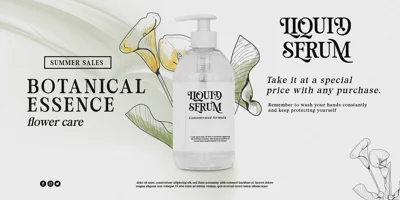
Semutan Font
Semutan Font is ideal for exotic travel branding, Southeast Asian restaurant menus, tropical resort marketing, cultural festival graphics, ethnic food packaging, traditional craft boutiques, heritage tourism materials, spice market signage, authentic cuisine cookbooks, and any vibrant project that celebrates the rich cultural diversity and tropical warmth of Southeast Asian traditions and lifestyle.
What makes Semutan Font exciting is its authentic cultural character that captures the vibrant energy of Southeast Asian heritage and the warm hospitality of tropical communities. This typeface embodies the spirit of cultural richness with letterforms that suggest traditional craftsmanship, spice market bustling, and the colorful tapestry of diverse ethnic traditions. The font's cultural character makes it perfect for brands and projects that want to communicate authenticity, warmth, and the exotic appeal of Southeast Asian culture and tropical lifestyle experiences.
The Semutan Font family includes multiple weights and cultural variations, featuring light, regular, and bold versions along with decorative elements and alternate characters inspired by traditional Southeast Asian calligraphy and artistic motifs. This comprehensive collection allows designers to create culturally authentic typography that maintains the font's signature exotic character while providing flexibility for various cultural and hospitality design applications.
When exploring authentic cultural typography, Semutan Font represents an exceptional opportunity to work with a typeface that genuinely captures the spirit of Southeast Asian culture and tropical lifestyle. This font demonstrates innovative design thinking by incorporating the organic warmth and cultural richness that define both traditional Southeast Asian artistry and the contemporary appeal of exotic travel experiences.
Professional designers appreciate Semutan Font for its ability to instantly evoke feelings of cultural authenticity and tropical warmth across various hospitality and cultural platforms. The font's exotic character makes it particularly effective for travel companies, restaurants, and cultural organizations seeking to establish connections with audiences drawn to authentic cultural experiences and tropical lifestyle adventures.
The contemporary appeal of Semutan Font lies in its perfect representation of cultural heritage and tropical lifestyle that continues to fascinate travelers and food enthusiasts worldwide. This typeface serves as a bridge between traditional Southeast Asian culture and modern global appreciation for authentic ethnic experiences and exotic destinations.
For creative professionals working with cultural and hospitality brands, Semutan Font represents the ultimate typography solution that brings authentic Southeast Asian character and tropical warmth to any application, ensuring designs reflect the vibrant culture and exotic appeal that define memorable cultural experiences and tropical lifestyle adventures.